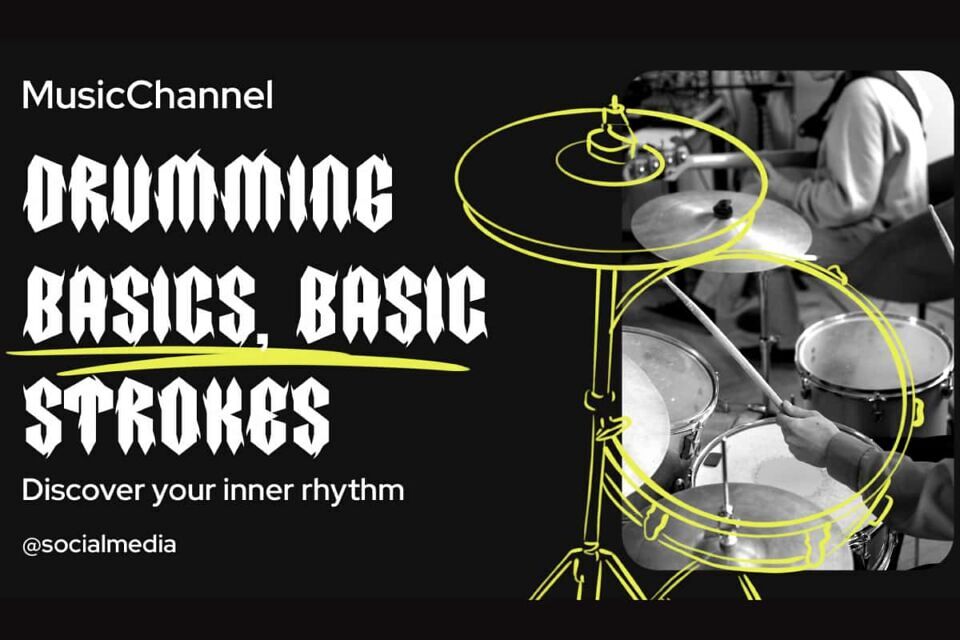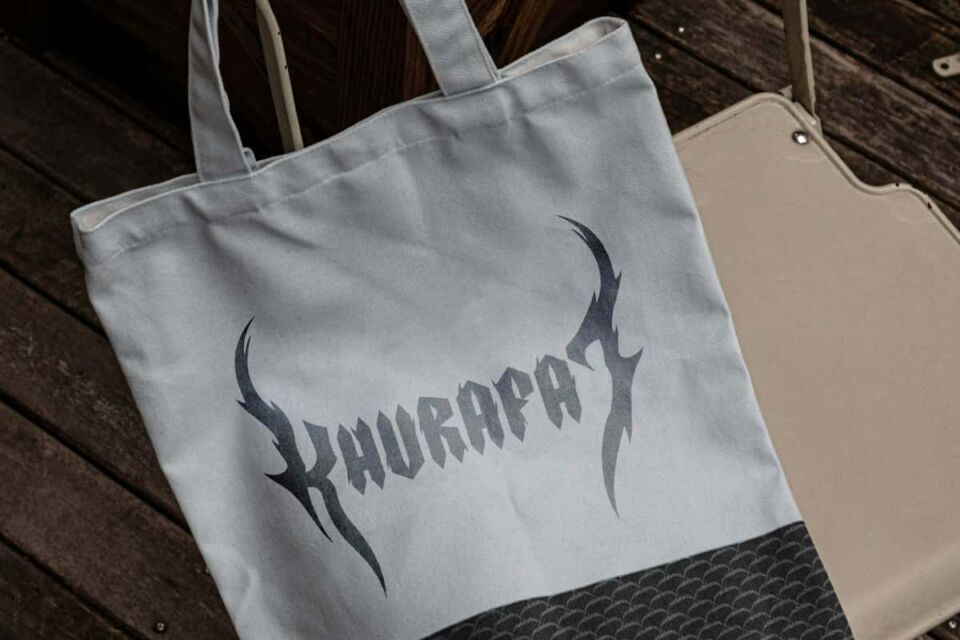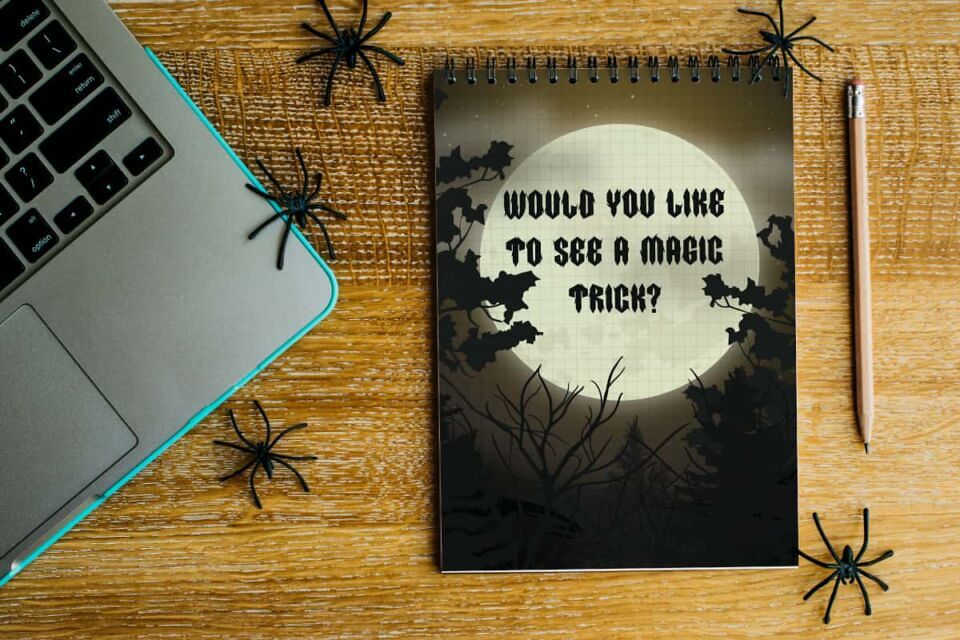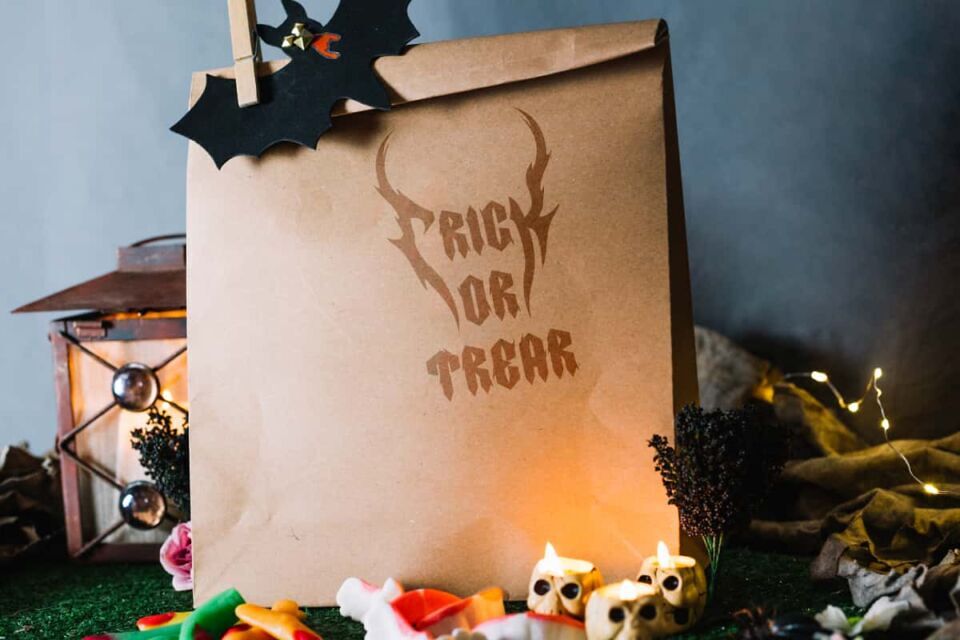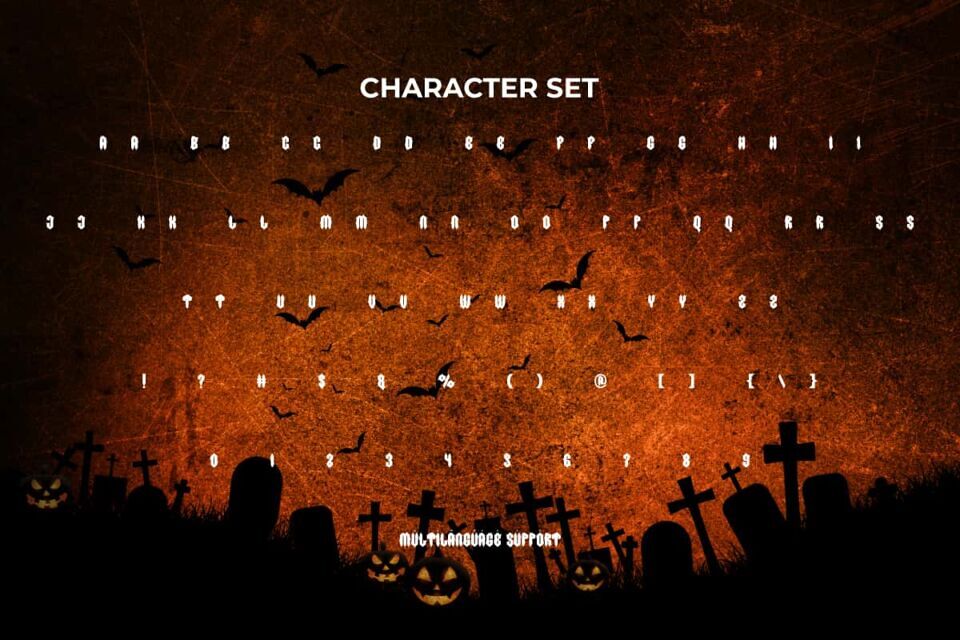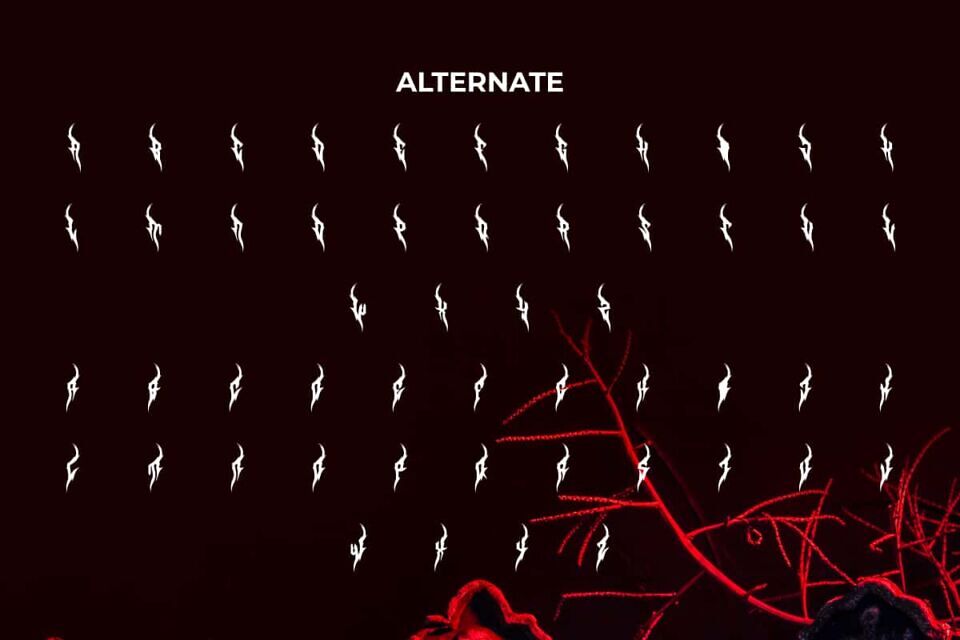
Khurafat Font is a horror black metal display font made more modern. This creates a typeface that aligns with the ferocity and energy of the metal genre. Step up your typography game with alternates, essentially carefully crafted fonts that communicate not only strength but also style in your composition. Perfect for banners, brochure, covers, flyer, headers, logos, mockup, poster, printed materials, template, title, and much more.
Khurafat Font includes a complete set of ALL CAPS for both Uppercase and Lowercase letters, Numbers, Punctuation, Symbols and Alternates. Make sure your design stands out with its extensive character set. Explore the many options to truly customize your text and make it unique to you. Perfect for accessories and merchandise, author, event organizer, fashion, film, graphic design, Halloween, handcrafted gift, movie, music band genre, printing, publishing, web designer, and much more.
Khurafat Font also supports multilingual characters which are ready to use either on Windows or Mac machines with a simple installation. Combine different characters for a bespoke, handcrafted feel.